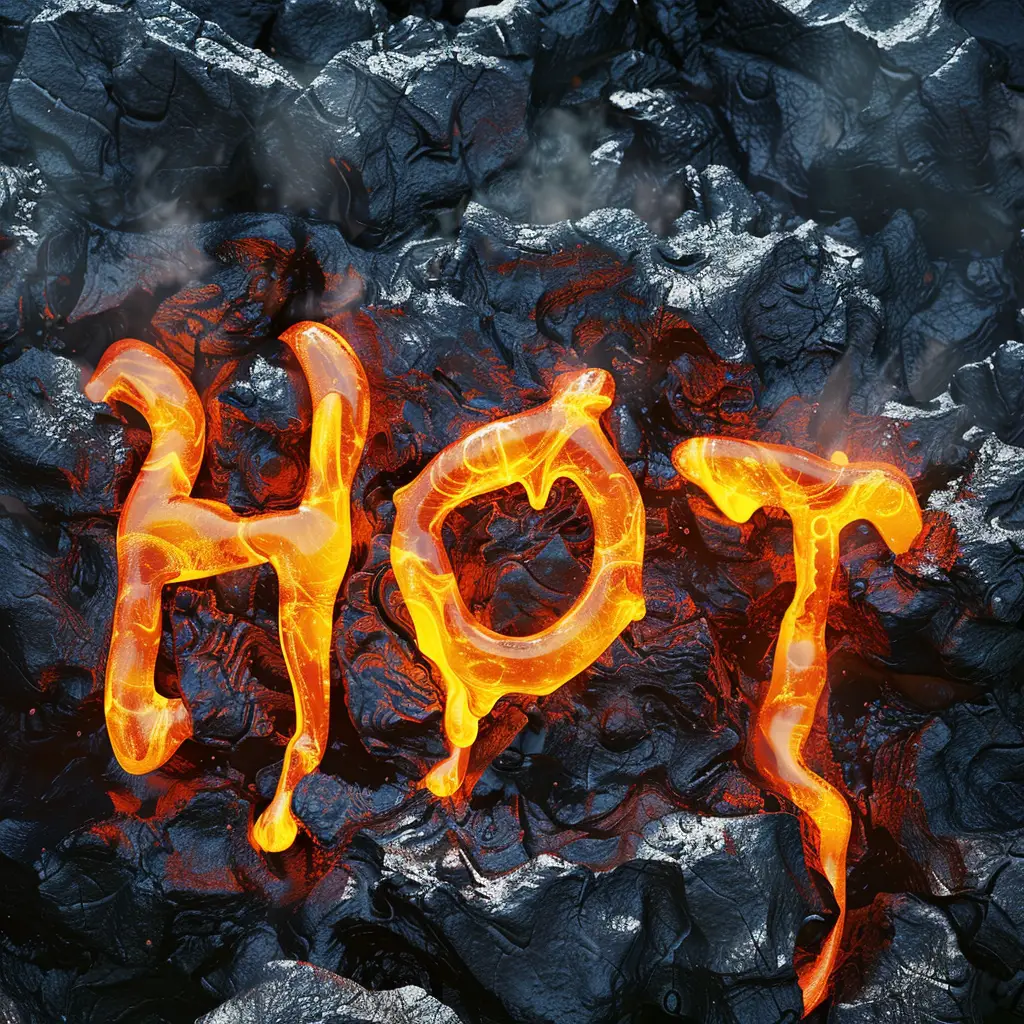
The image features the word "HOT" rendered in a molten, glowing orange-yellow font, with dripping, fluid-like edges that evoke the appearance of lava. Set against a textured, dark gray and black rocky background with subtle white highlights and wisps of smoke, the design emphasizes heat and intensity through its fiery typography and contrasting cool, rugged backdrop.